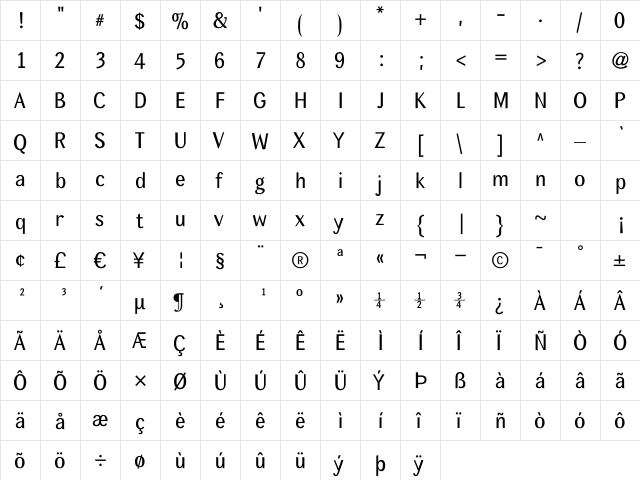
MexSansRegular Regular
Design Context for MexSansRegular Typeface
MexSansRegular takes a measured approach to typography — its balanced proportions and neutral character make it a reliable workhorse for both digital and print work.
Pro Tip: Use MexSansRegular in both headline and body roles to test its range before committing to a single application.